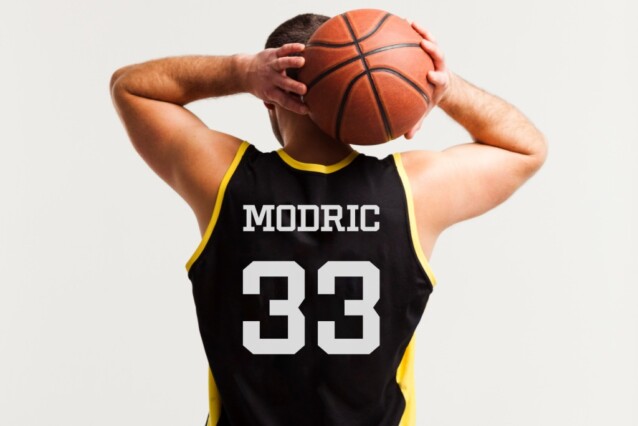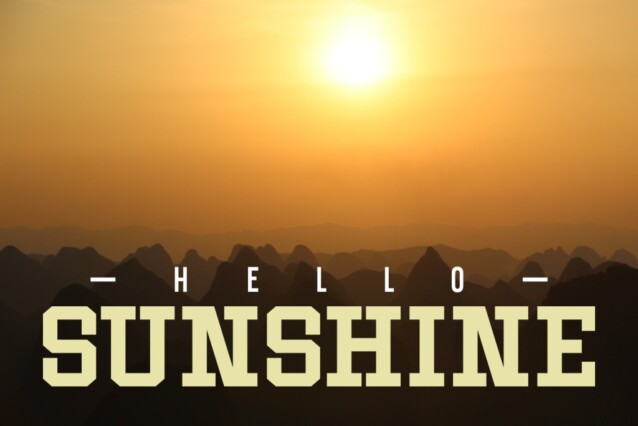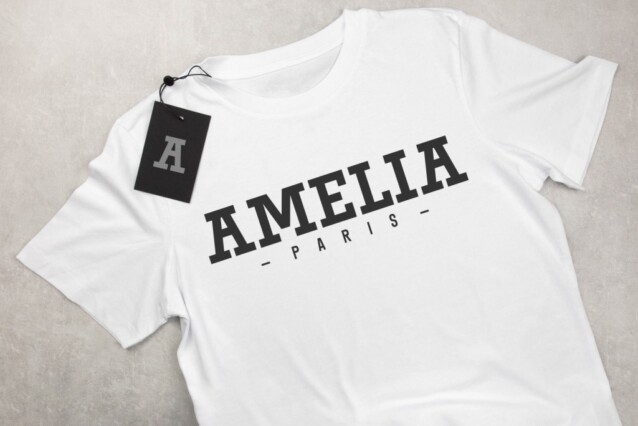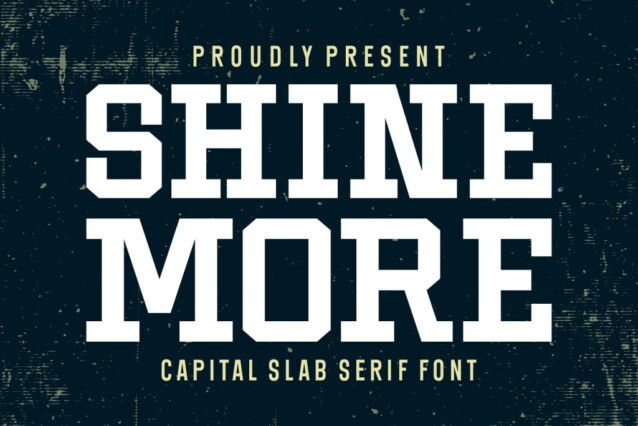
Shine More Font
Shine More Font is a retros slab serif all caps display font crafted & designed by Jasm 7NTypes. Bold stroke, fun character with a bit of ligatures and alternates. No matter the topic, this font will be an incredible asset to your fonts’ library, as it has the potential to elevate any creation.